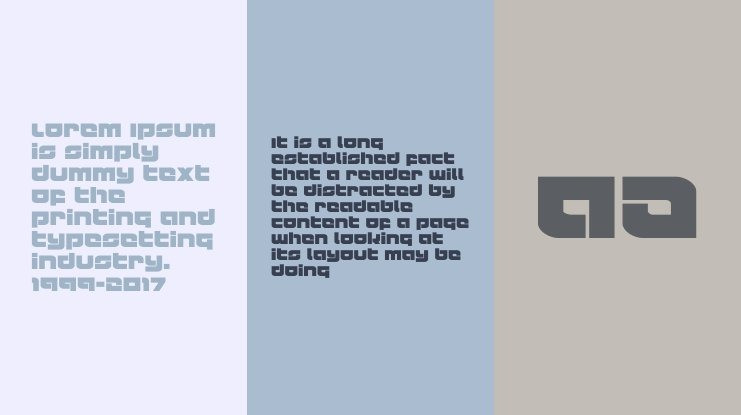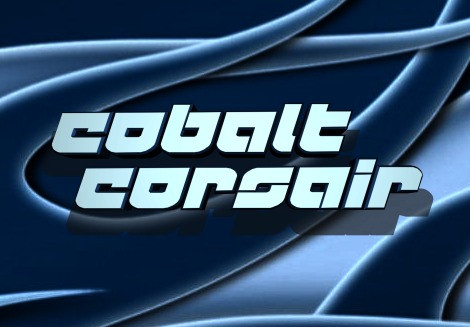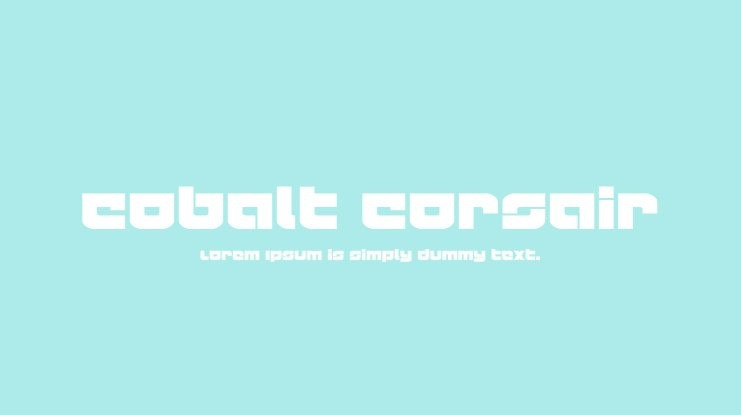
Cobalt Corsair Font
Cobalt Corsair Display Font, is a sturdy font, perfectly fit for branding, logo, wedding things, greeting cards, fashion, lookbook, marketing promotion, anytime you want to look fancy elegant but still casual.